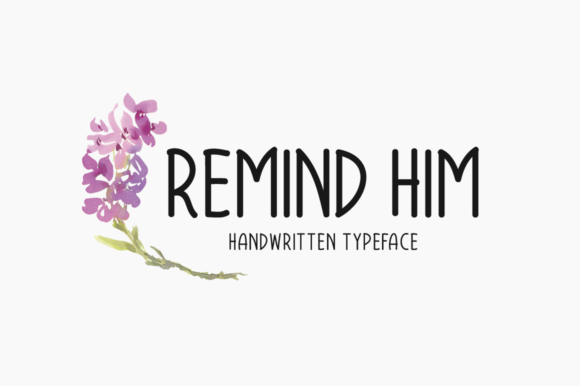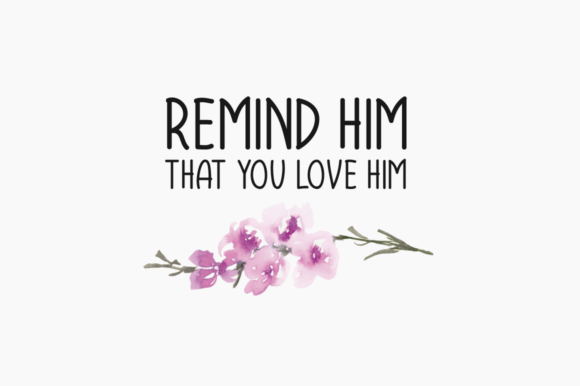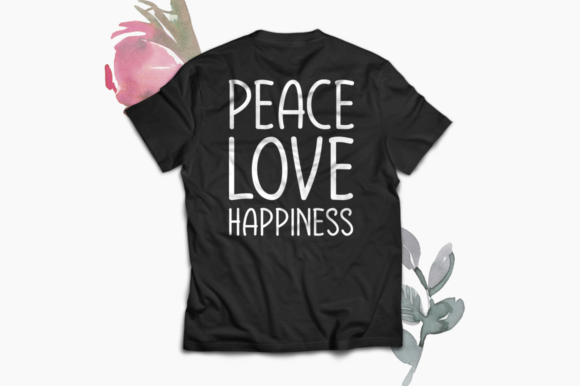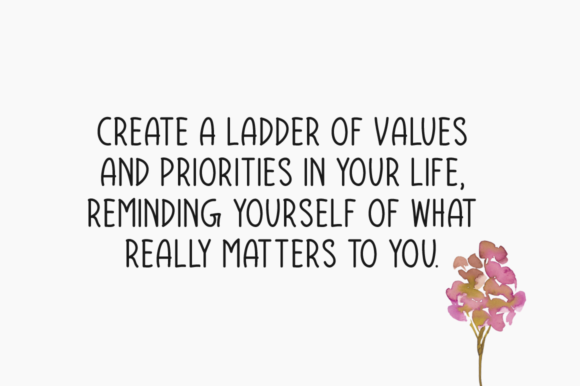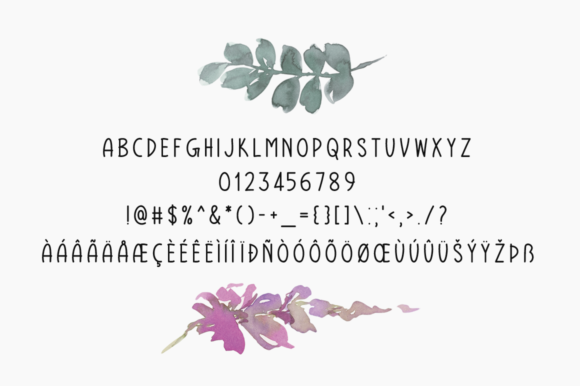
About Remind Him Font
Remind Him is a cute and simple lettered handwritten font that can be used for all chalkboard quotes or teaching material! Its authentic look will add a personal and realistic feel to your designs.